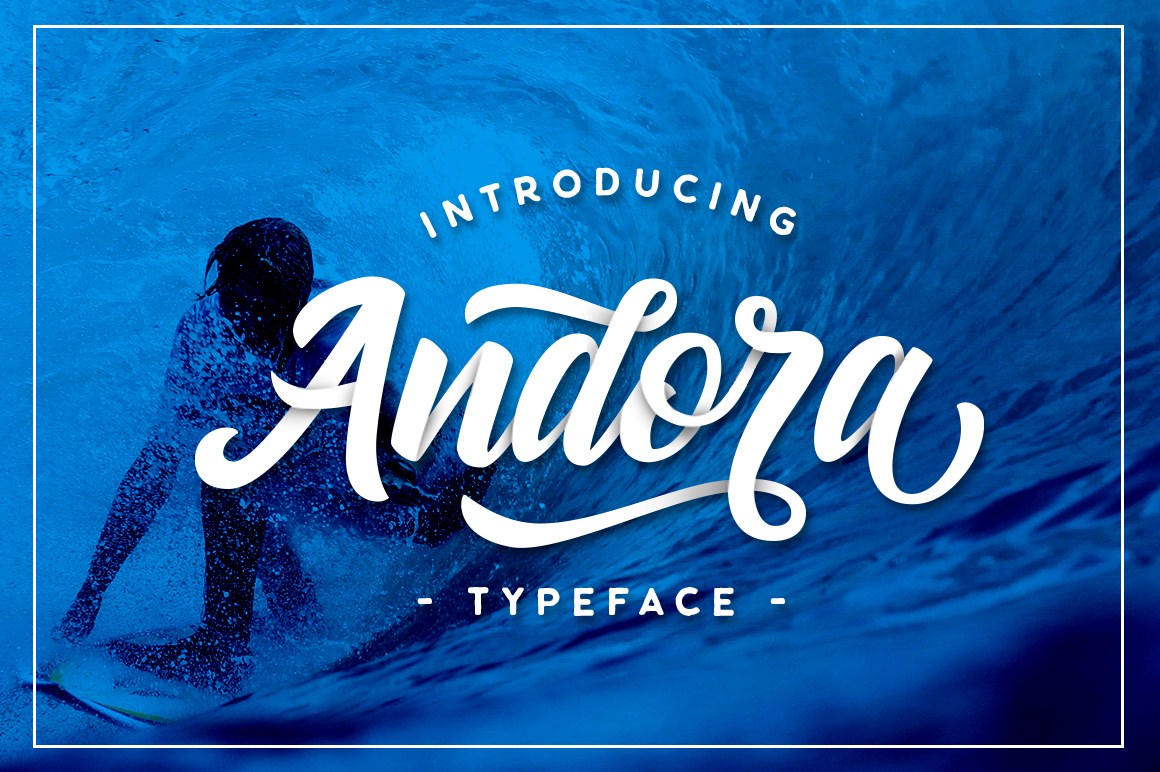
Discover the Charm of Andora Font: A Handlettered Gem for Creative Projects
I’ll never forget the time I was working on a branding project for a trendy coffee shop. My client wanted a font that was both clean and casual, but I was struggling to find the perfect fit. That’s when I stumbled upon Andora Font, a beautiful handlettered font that instantly caught my eye. In this article, I’ll share my experience with Andora, its features, and how to make the most of it in your creative projects.
An Honest Review of Andora Font
So, what makes Andora Font special? Here are some things I love about it:
- ✨ Clean and modern style that’s perfect for a wide range of projects
- ✅ Easy to read, even at smaller font sizes
- 💫 Beautiful handlettered feel that adds a touch of personality to any design
- 🎨 Highly versatile and adaptable to different styles and themes
Of course, no font is perfect, and Andora has a few quirks:
- 🤔 Some users might find the font a bit too casual for very formal projects
The Story Behind Andora Font
Andora Font was designed with the goal of creating a clean, modern handlettered font that’s both elegant and approachable. The designer wanted to create a font that would be perfect for a wide range of projects, from branding and advertising to packaging and digital design.
| Font Name | Andora Font |
| Author | Weape Design |
| What makes Andora Font unique? | Andora Font is a handlettered font with a clean and modern style that’s both elegant and approachable. |
| Is Andora Font suitable for body text? | While Andora Font is beautiful, it’s best suited for headlines and titles. For body text, a clearer font might be more suitable. |